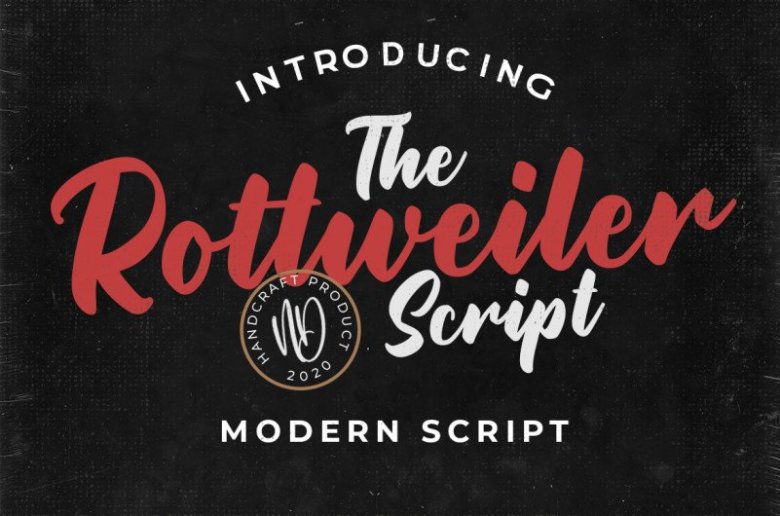
Rottweiler Script Font
Rottweiler Font is a handwritten font with a classic and retro style, though wild and irregular styles have a high level of legibility. Made to provide an authentic hand look but still maintain its legibility and clarity.
Rottweiler Font is perfectly suited to logo, stationery, branding, typography quotes, magazine or book cover, website header, clothing, branding, packaging design, restaurant and more.